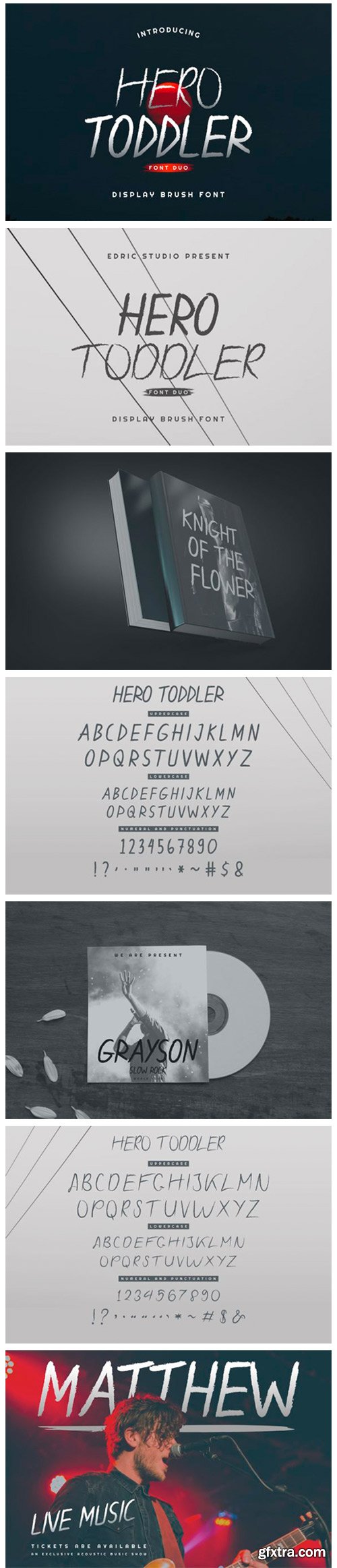
Hero Toddler Font
Hero Toddler is a simple and neat lettered display font. Add this font to your creative ideas and notice how it will make them stand out!